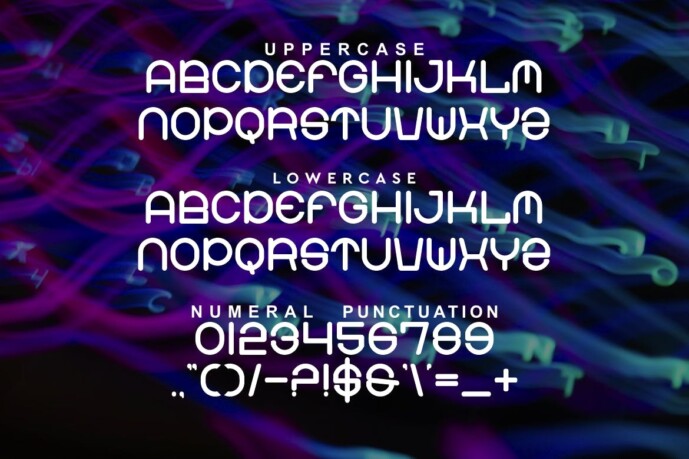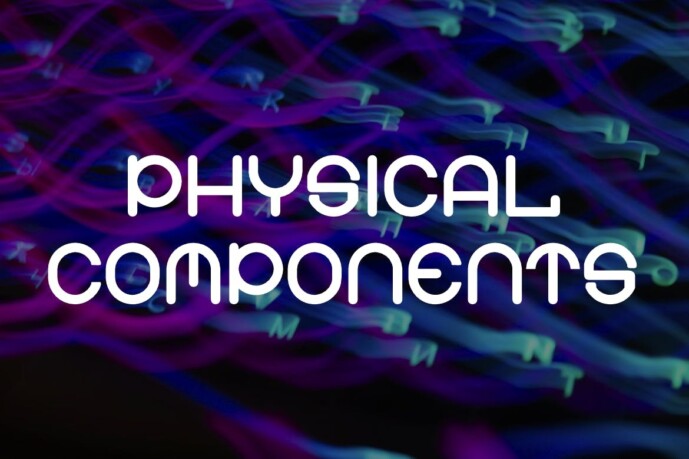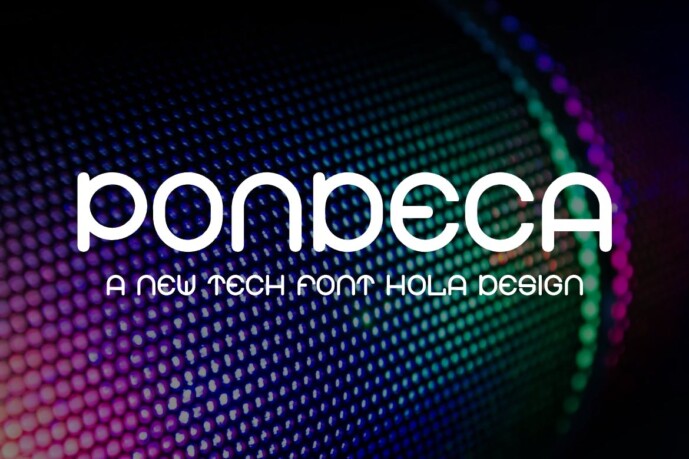
Pondeca Font
Designer: holadesignstd
Black Desgron Font is unique. Ready to use for your designs, such as technology, apps, software, labeling, movie screen, poster, movie title, concerts, album covers, logos and even more